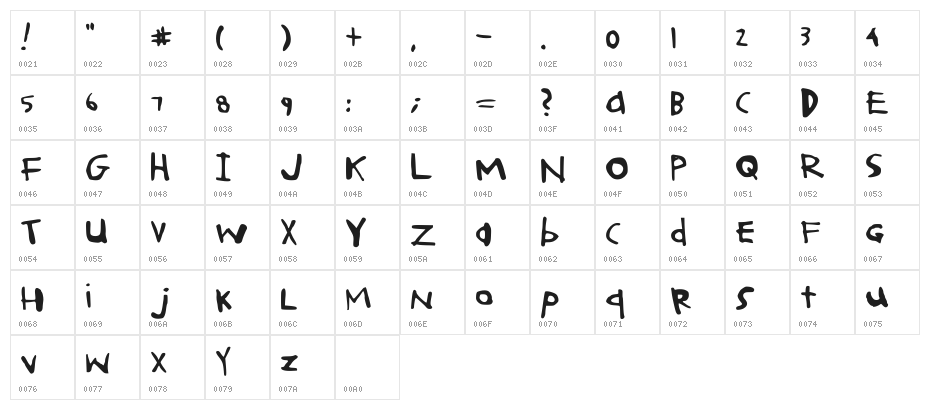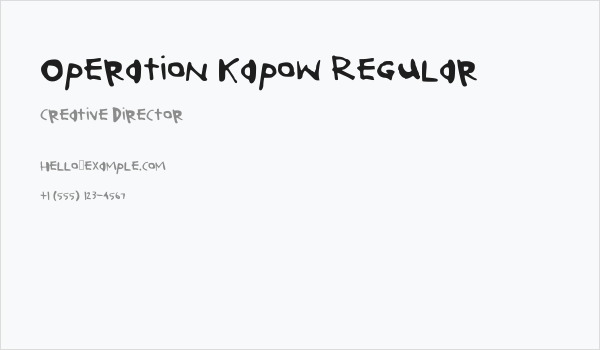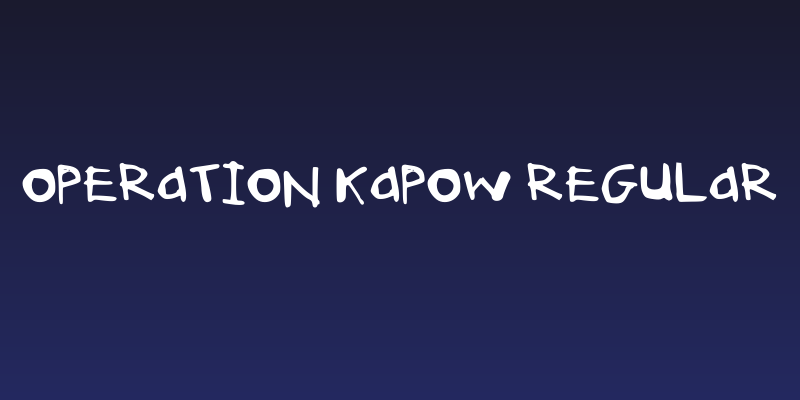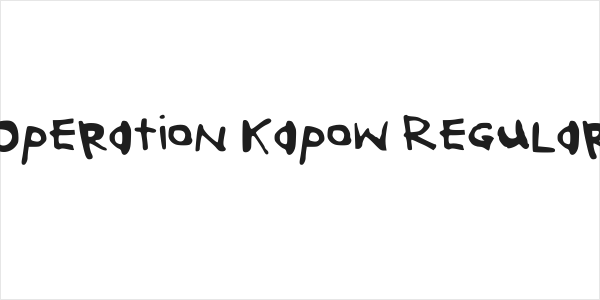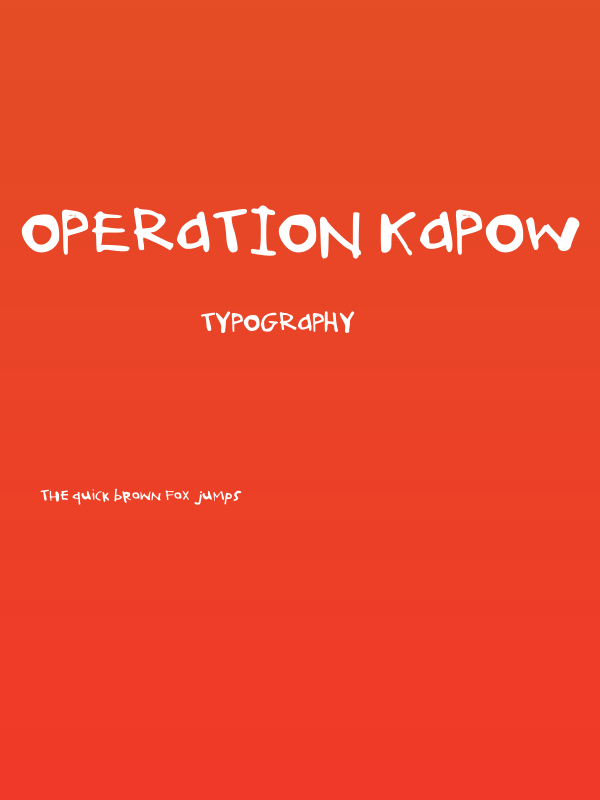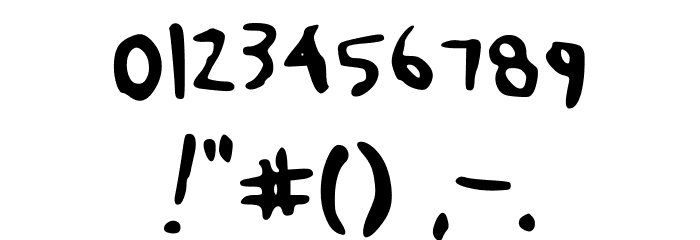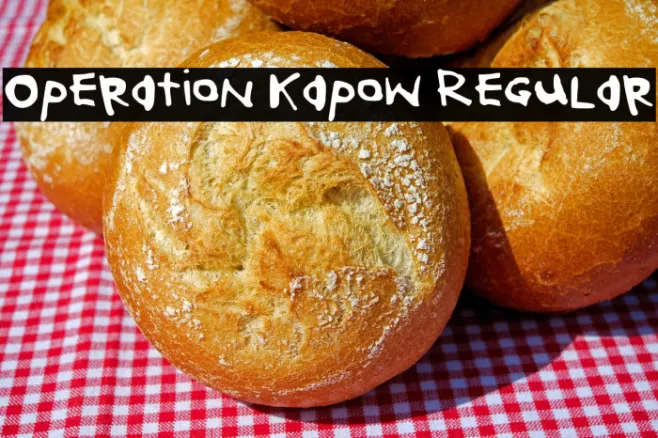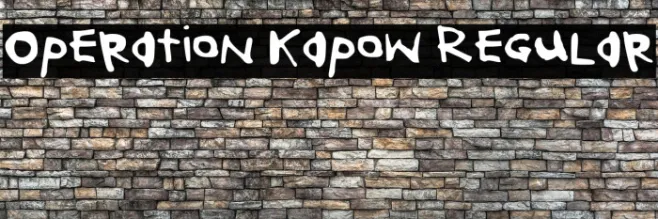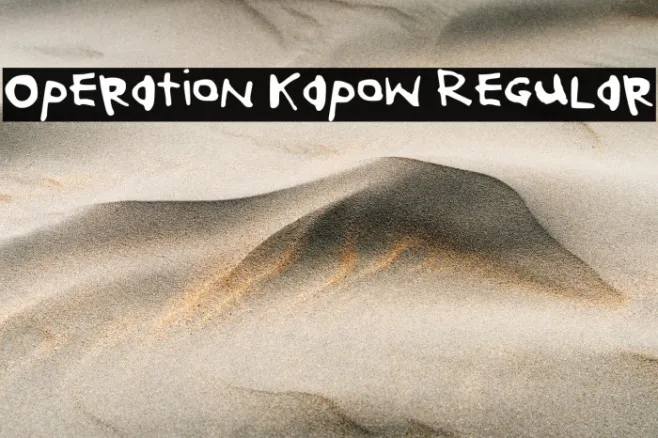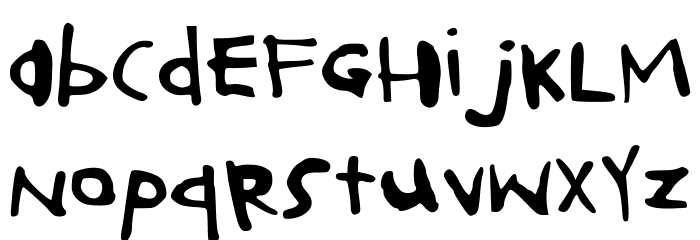
Operation Kapow Regular Font
Operation Kapow Regular Description
This font exudes a playful and dynamic energy, characterized by its bold and irregular strokes. The letters have a hand-drawn appearance, giving them a casual and informal feel. The uppercase and lowercase letters maintain a consistent style, with exaggerated curves and varying line thickness that add to its whimsical charm. The numbers and special characters follow the same lively design, making the font suitable for creative and fun applications. Its unique style captures attention and adds a sense of movement and excitement to any project.
| Proposed Projects | Ideal for comic books, children's books, playful branding, and creative posters. |